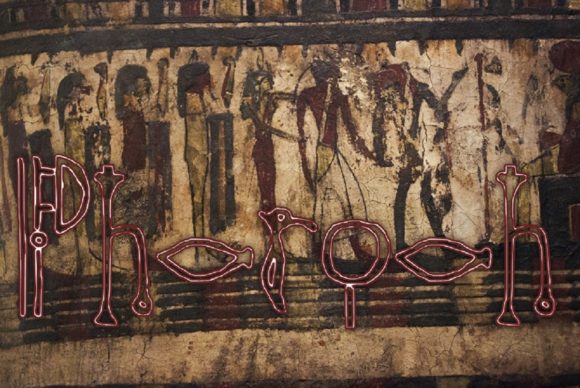
Introduction to Egyptian Outline Font Font
Fonts play a crucial role in design, and the Egyptian Outline Font font is a typeface that brings both character and versatility to any project. Whether you’re working on a branding project, a website, or a print design, the Egyptian Outline Font font offers a unique style that can elevate your work.
Egyptian Outline is a decorative font inspired by Ancient Egyptian hieroglyphics.
Use it for any projects that requires an original look .
Key Features of Egyptian Outline Font Font
Why Choose Egyptian Outline Font Font?
The Egyptian Outline Font font is more than just a typeface – it’s a design tool that helps you communicate your message with style and clarity. Its unique character set and versatile design make it suitable for a wide range of applications, from elegant invitations to bold headlines.
With its carefully crafted letterforms and balanced proportions, the Egyptian Outline Font font ensures readability and visual appeal across all mediums.
What makes Egyptian Outline Font font special?
The Egyptian Outline Font font stands out with its unique design, exceptional readability, and versatility across various design applications.